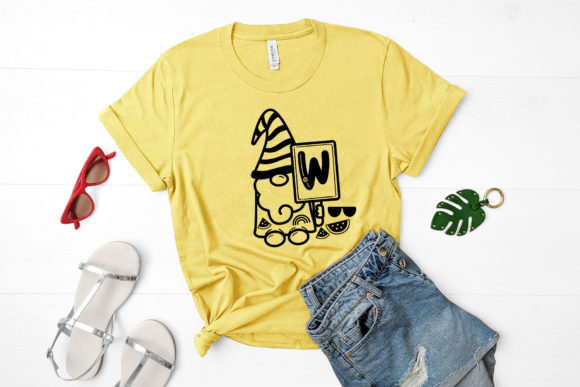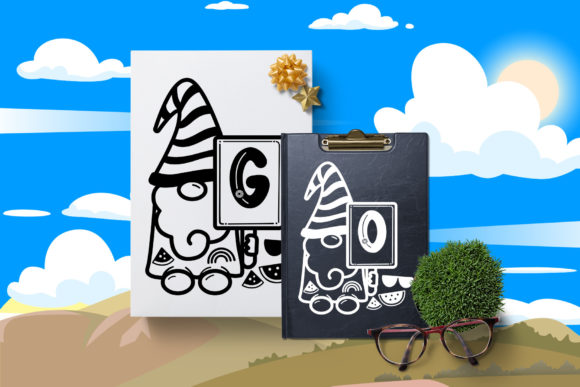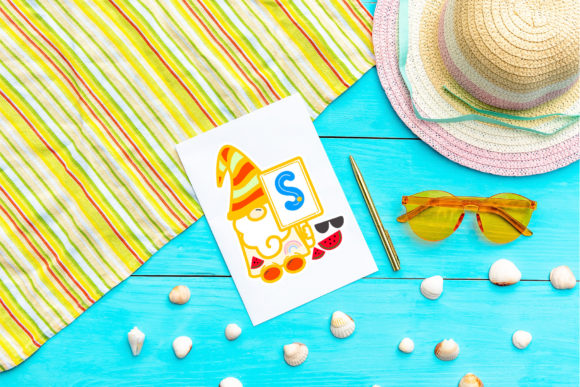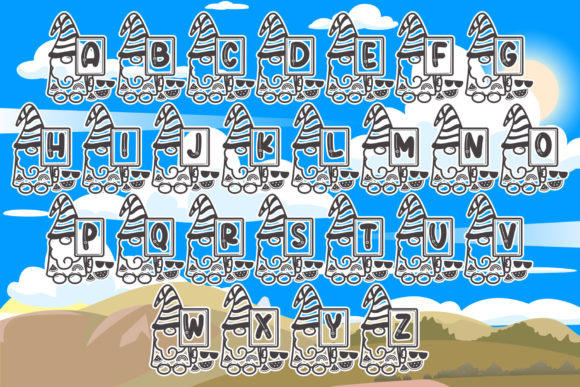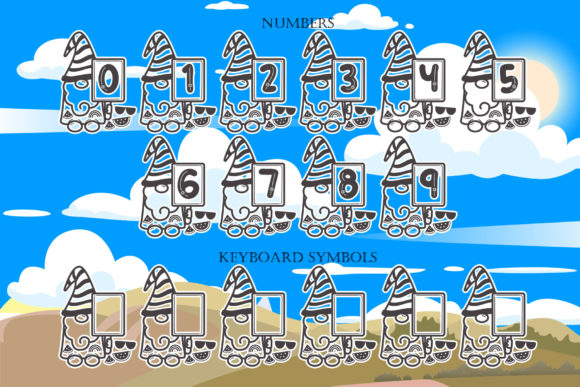
Introduction to Monogram Summer Gnome Font
Remember the excitement of creating your first craft project as a child? The joy of combining colors, textures, and patterns to bring your imagination to life? That same spark of creativity can be reignited with the perfect design resource – and we think the Monogram Summer Gnome Font is just the thing.
Whether you’re a seasoned designer or a DIY enthusiast, this charming font is sure to add a touch of whimsy to your next creative project. With its quirky charm and high-quality design, the Monogram Summer Gnome Font has the potential to elevate any creation and make it truly special.
Key Features of Monogram Summer Gnome Font
- Unique, hand-drawn design perfect for creative projects and personal branding
- Customizable and editable, allowing designers to tailor the font to their specific creative project requirements
Honest Review: Monogram Summer Gnome Font
One of the standout features of this font is its high quality, with clean lines and a clear, readable design. I especially liked that it comes with a transparent background option, which made it easy to incorporate into my design without any background distractions.
Here are some of the things that work well: ✨ Unique design style that adds a touch of whimsy to any project ✨ High-quality design that’s perfect for print and digital projects ✨ Transparent background option for easy integration
However, there are a few limitations to consider: ⚠️ Limited character set, which may not be ideal for longer texts ⚠️ May not be suitable for all design styles or projects
Overall, I was very pleased with the Monogram Summer Gnome Font. It’s a great addition to any design resource collection, and I would definitely recommend it for creative projects where a unique and high-quality font is needed.
To get the most out of the Monogram Summer Gnome Font, use it for creative projects that require a high-quality, unique design element. The font’s transparent background makes it easy to combine with other design elements and create visually appealing graphics.
The Monogram Summer Gnome Font is commonly used for:
- Branding and logo design.
- Summer-themed graphics and designs.
Alternatives to Monogram Summer Gnome Font
Wonderland Script
Wonderland Script is a beautiful, elegant script font that’s perfect for creative projects that require a touch of sophistication. It’s available for free download and features a transparent background, making it easy to use as a design resource. With its high-quality design, Wonderland Script is a great alternative to Monogram Summer Gnome Font for projects that need a more refined look.
When to use: Wedding invitations, luxury branding, high-end product packaging
Comparison to Monogram Summer Gnome Font: Wonderland Script has a more elegant and refined feel, making it suitable for more formal projects. While Monogram Summer Gnome Font is playful and whimsical, Wonderland Script is perfect for projects that require a touch of sophistication.
Cream Soda
Cream Soda is a fun and playful font that’s perfect for creative projects that need a touch of whimsy. It’s available for free download and features a transparent background, making it easy to use as a design resource. With its high-quality design, Cream Soda is a great alternative to Monogram Summer Gnome Font for projects that need a more laid-back feel.
When to use: Social media graphics, blog posts, casual branding
Comparison to Monogram Summer Gnome Font: Cream Soda has a more relaxed and casual feel, making it suitable for projects that need a more laid-back vibe. While Monogram Summer Gnome Font is playful, Cream Soda is more laid-back and easy-going.